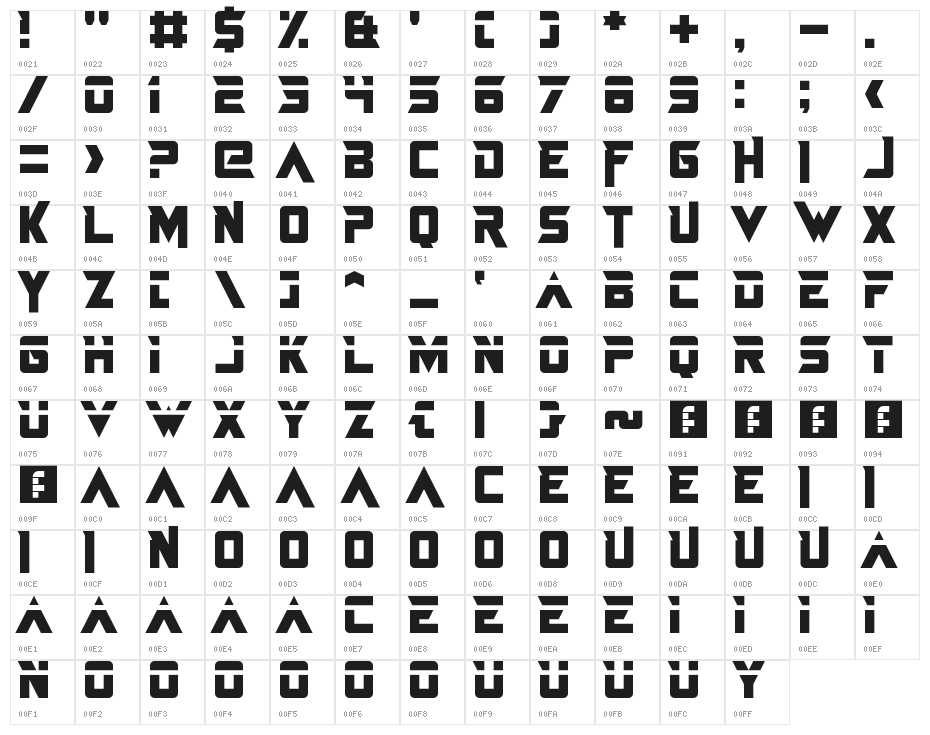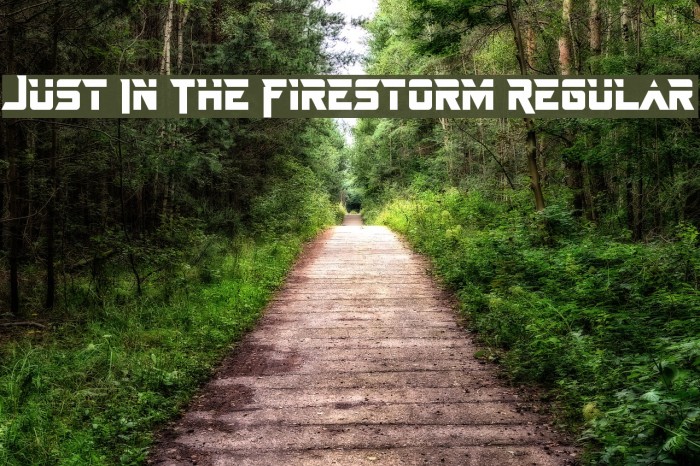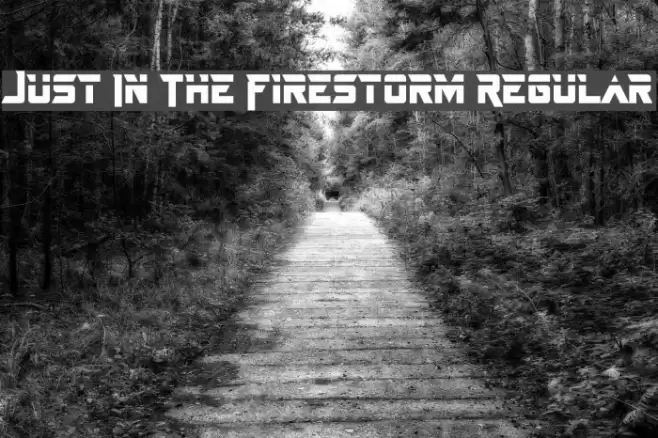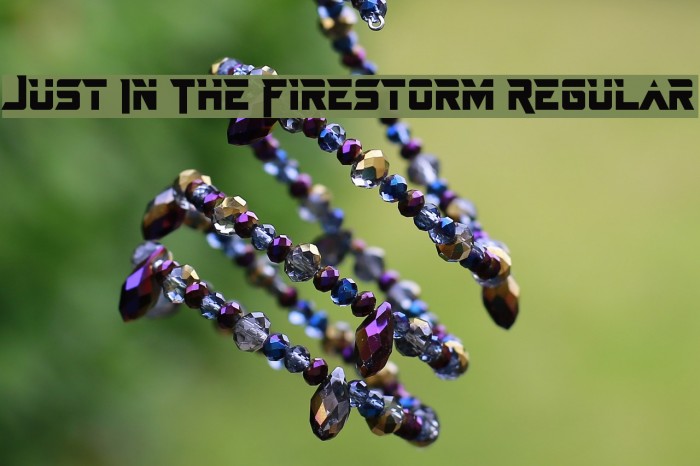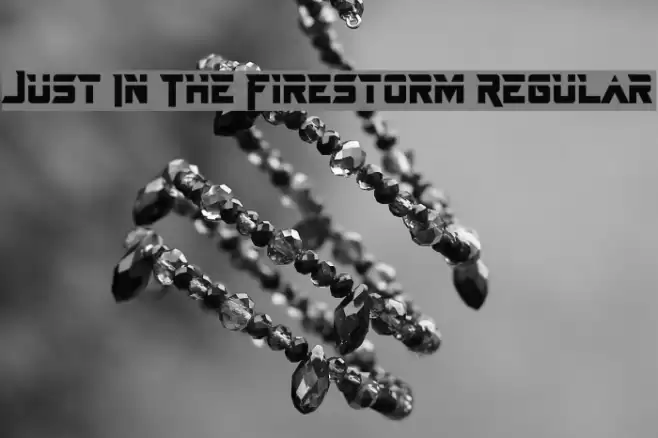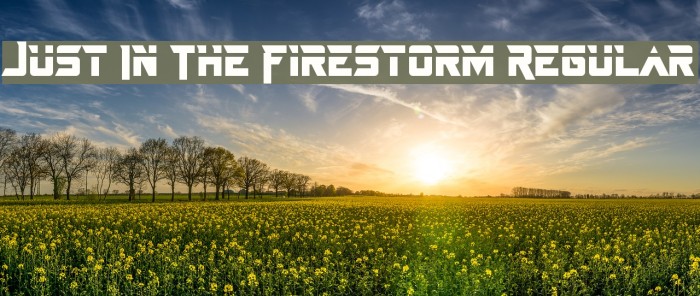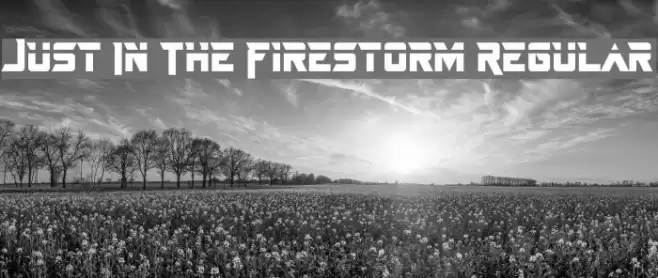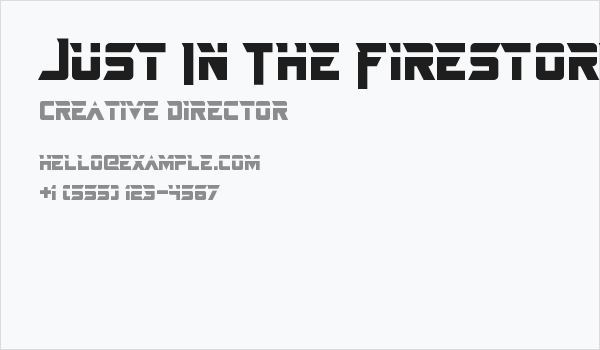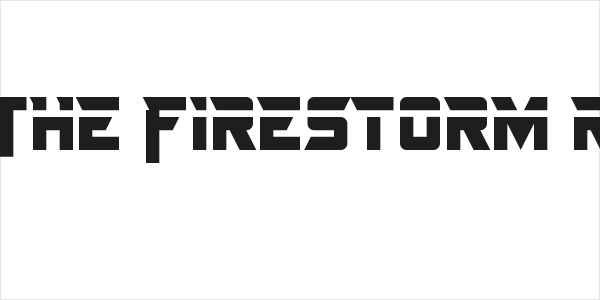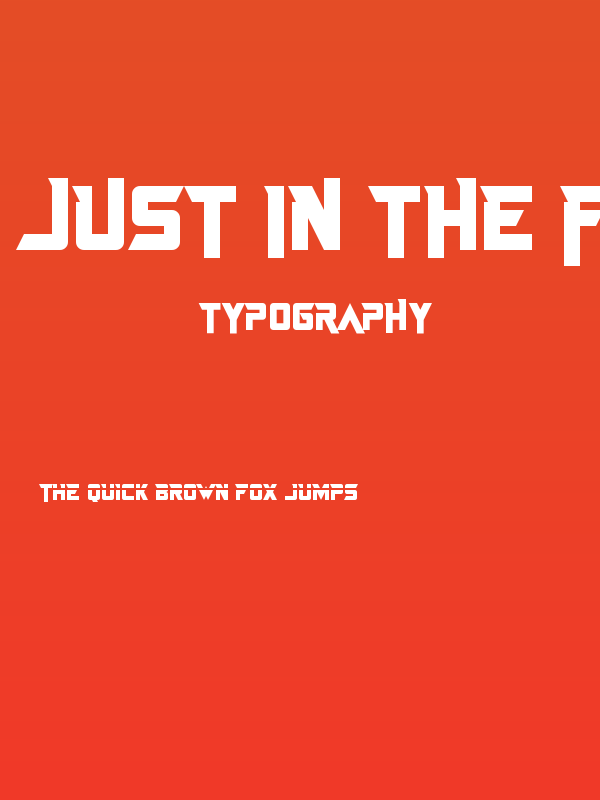
Just In The Firestorm Regular Font
Just In The Firestorm Regular Description
This font exhibits a bold and futuristic design, characterized by its geometric and angular shapes. The letters are constructed with sharp edges and a blocky appearance, giving it a strong and impactful look. The uppercase and lowercase letters maintain a consistent style, with a uniform height and width that enhances its modern aesthetic. The numbers and special characters follow the same design principles, ensuring a cohesive appearance across all glyphs. This font's unique style makes it ideal for projects that require a bold and attention-grabbing typeface.
| Proposed Projects | Ideal for sci-fi themed designs, video game graphics, posters, and branding that requires a modern and striking appearance. |